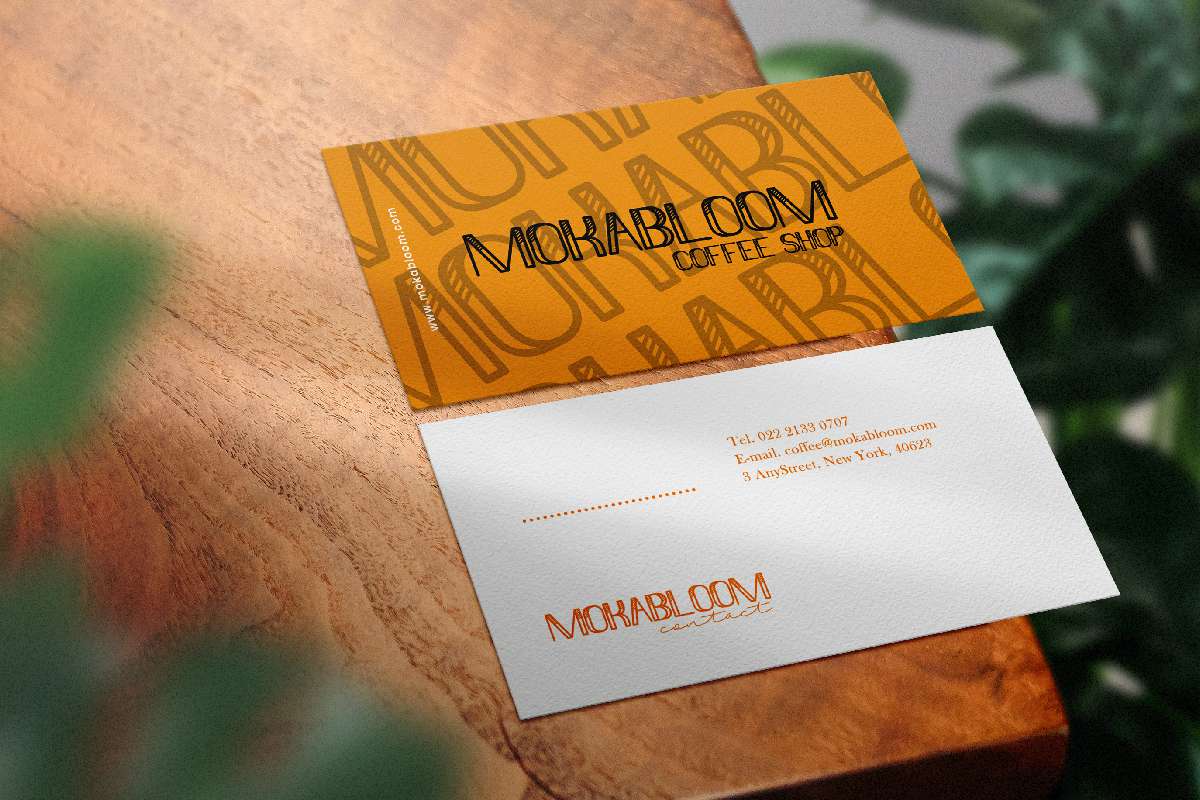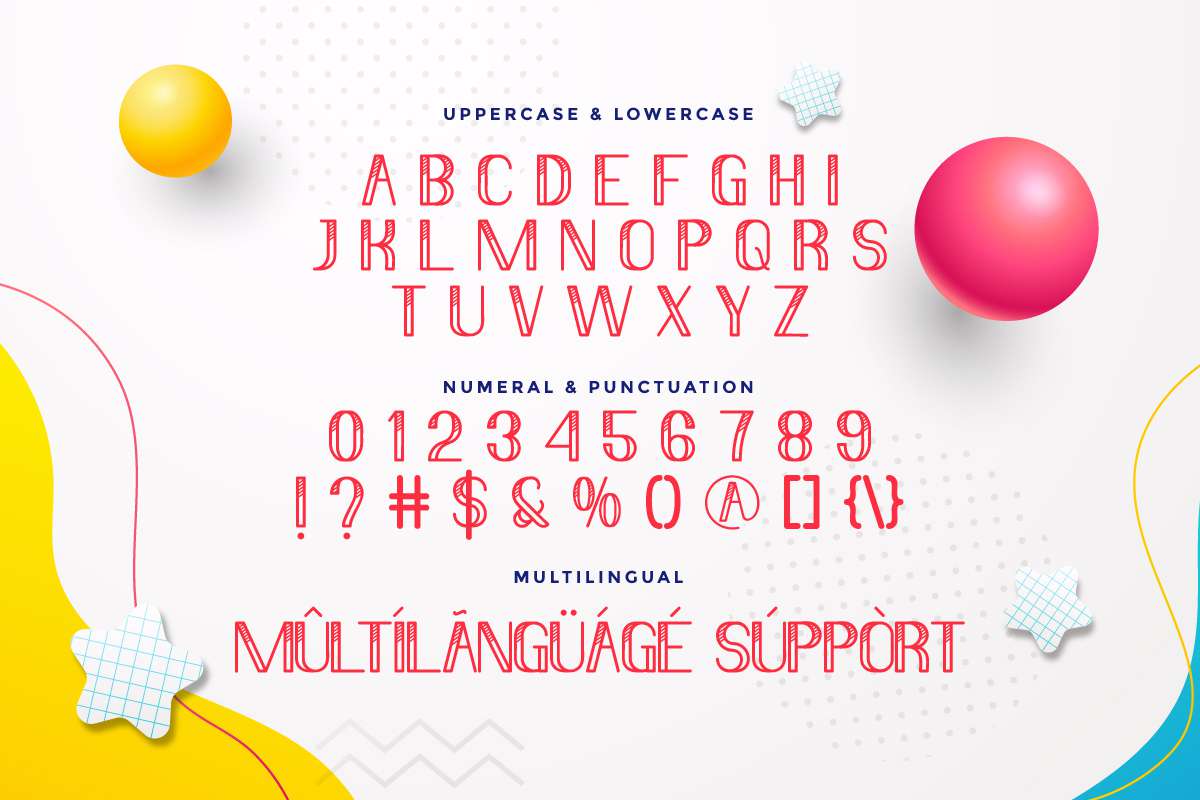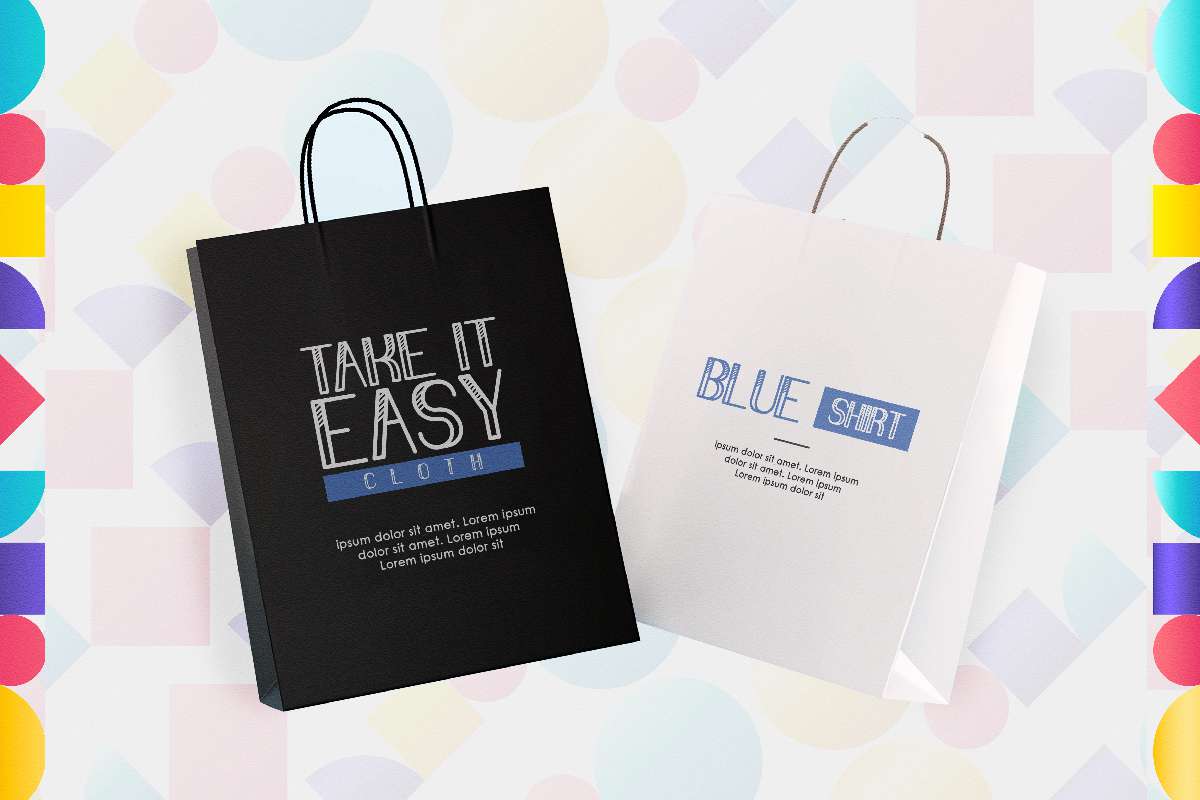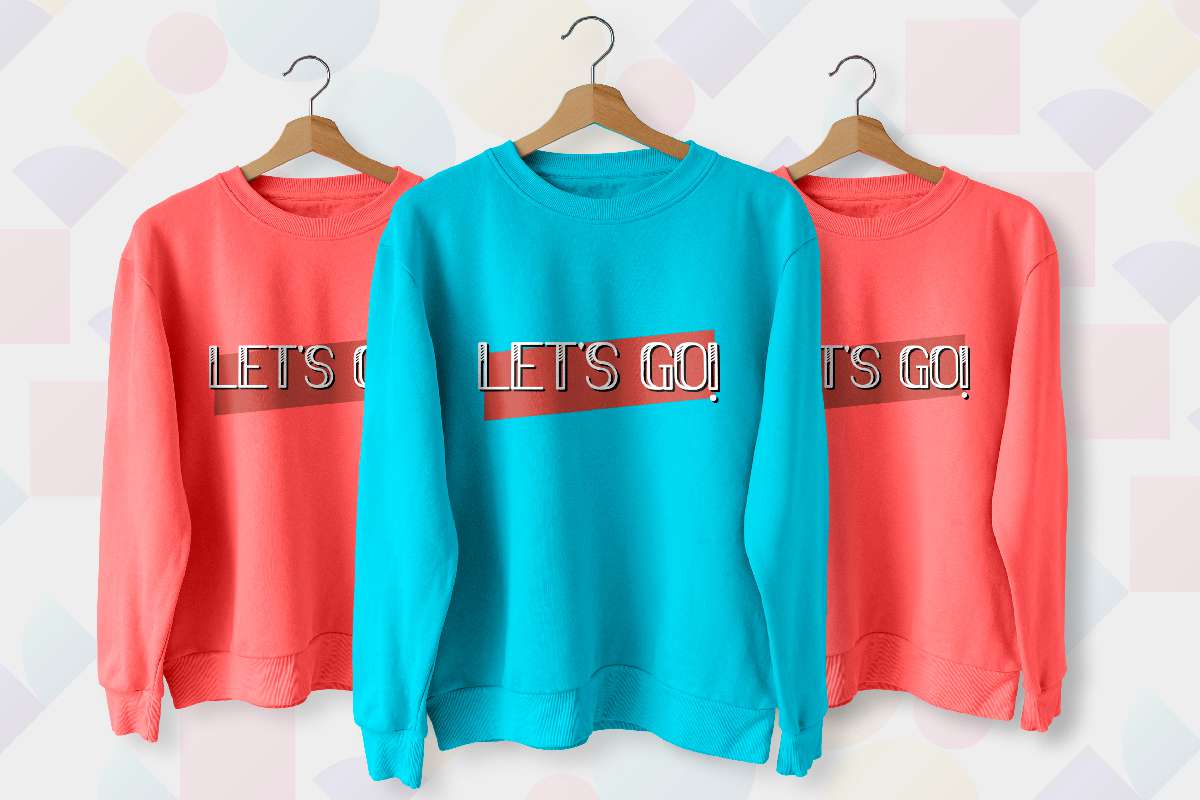
Mini Striped Font
Mini Striped Font is a decorative display font. The outline look font with mini line effect makes it clean, simple and stylish. This font works for businesses or companies such as, fashion, food and drink, games, kids, music, techno, website etc.
Mini Striped Font includes a set CAPS of Uppercase and Lowercase Basic Characters of the same size, Numerals and Punctuation. The font is perfect for many projects, branding logos, product packaging, posters, signage, social media post, stationery, titles and many more!